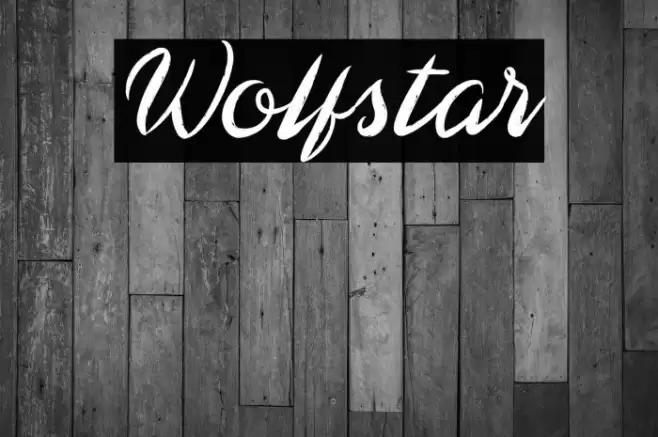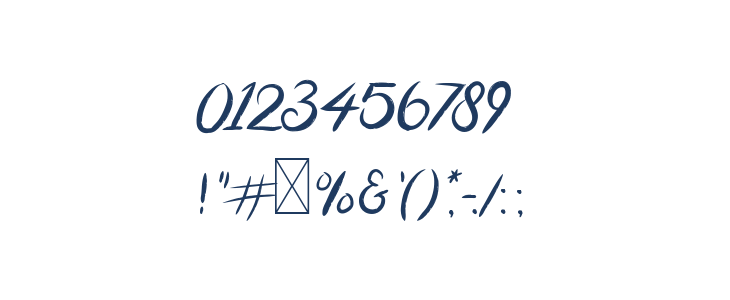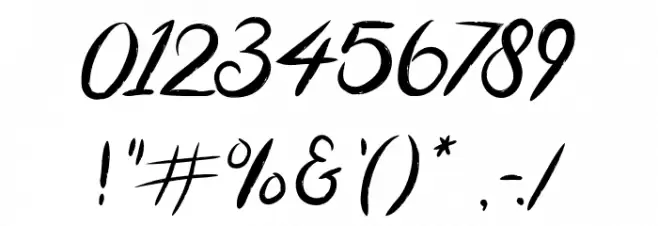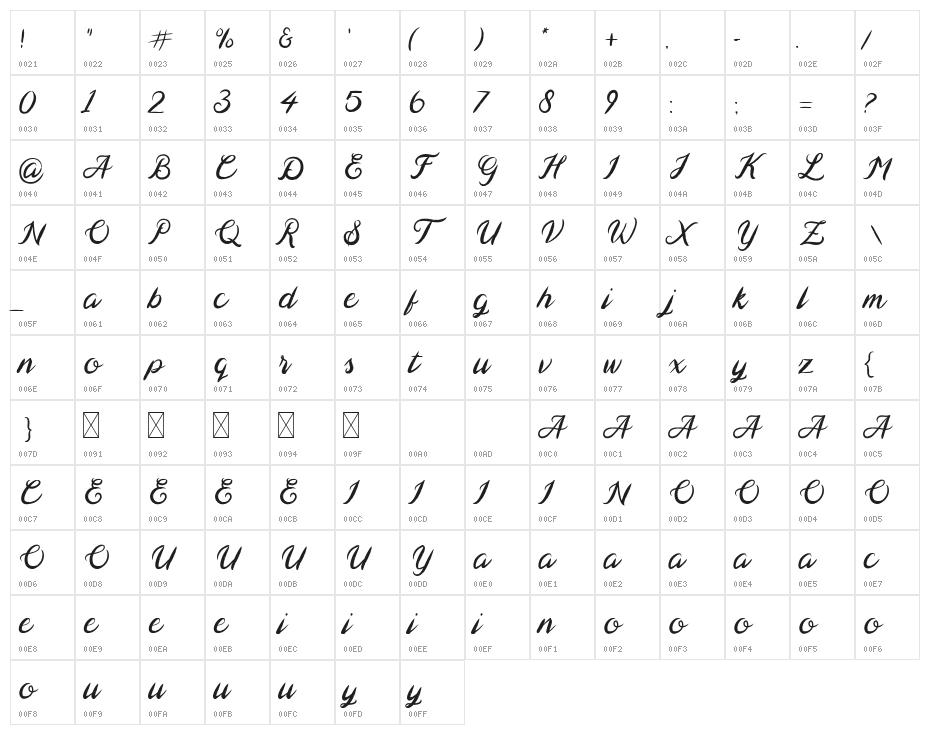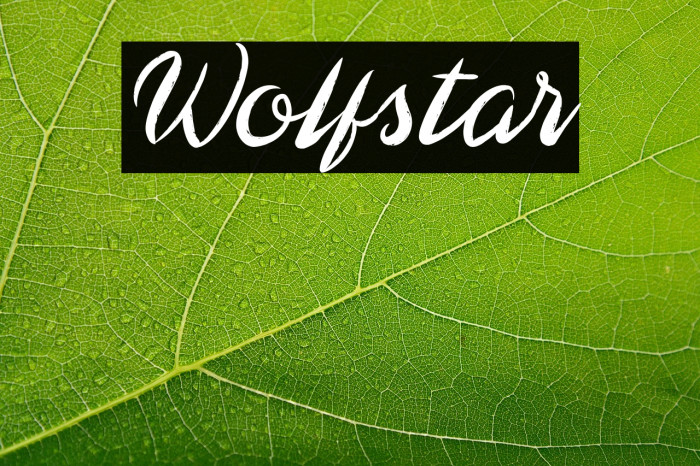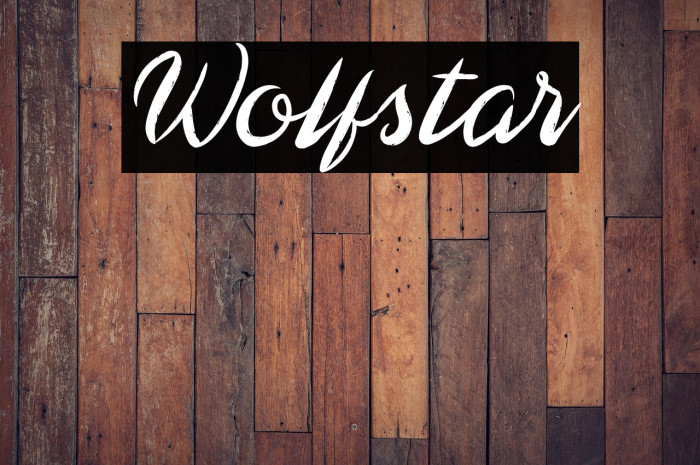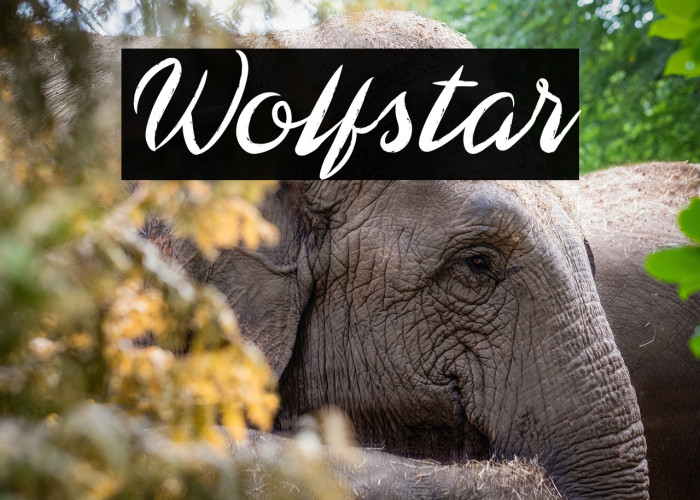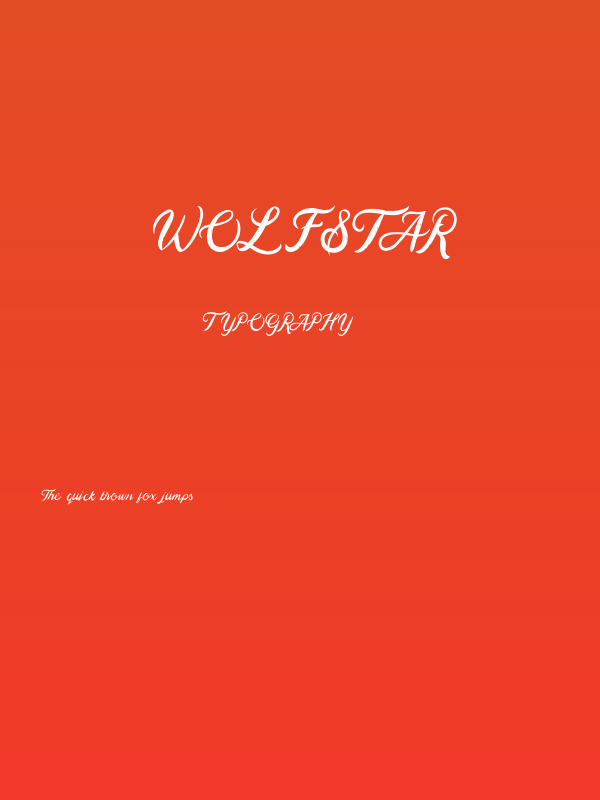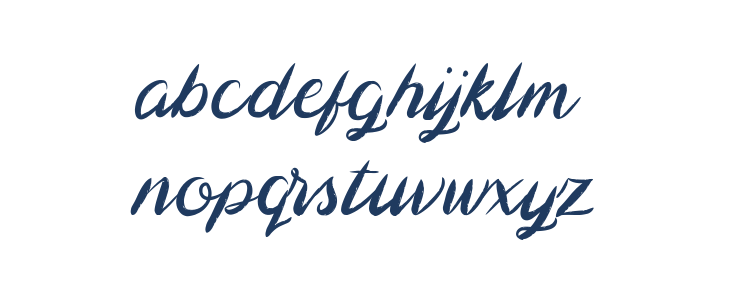
Wolfstar Font
Wolfstar Description
This font exudes a dynamic and elegant script style, characterized by its fluid, cursive strokes that convey a sense of movement and grace. The uppercase letters are bold and sweeping, with distinctive flourishes that add a touch of sophistication. The lowercase letters maintain a consistent flow, enhancing readability while preserving the artistic flair. Numbers are crafted with the same attention to detail, ensuring uniformity across all characters. The special characters are thoughtfully integrated, maintaining the overall aesthetic. This font is ideal for projects that require a personal, handwritten touch, such as invitations, branding, or artistic designs.
A dynamic and elegant script font with fluid, cursive strokes from Regular fonts.
- Proposed Projects: Ideal for invitations, branding, artistic designs, and any project needing a personal touch.
- Overall Style: Elegant, Artistic
- Use Case: Logos, Invitations, Artistic Designs